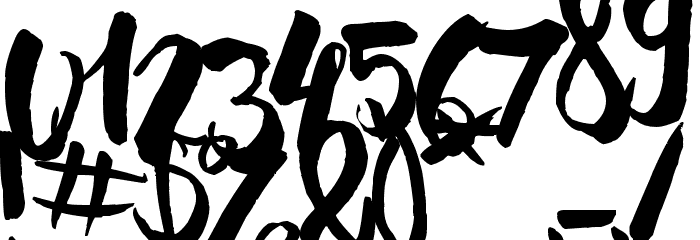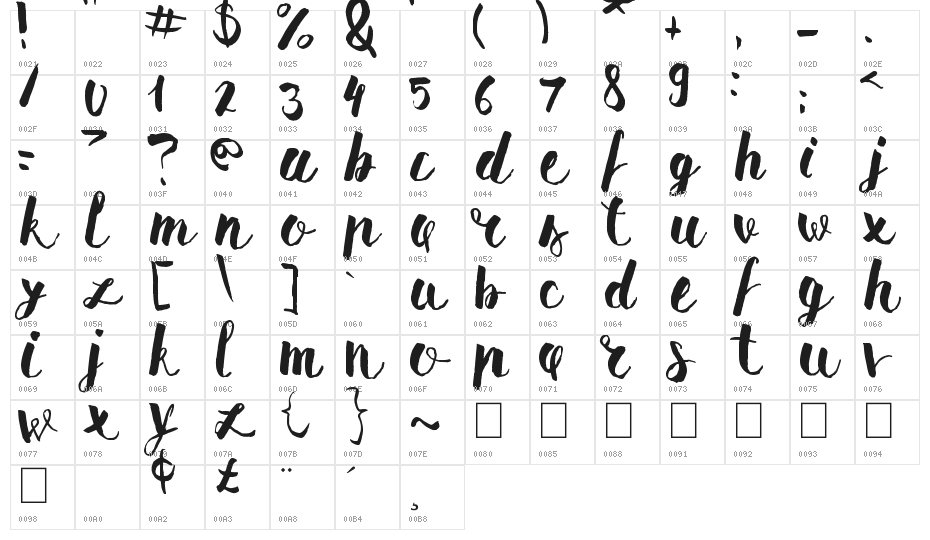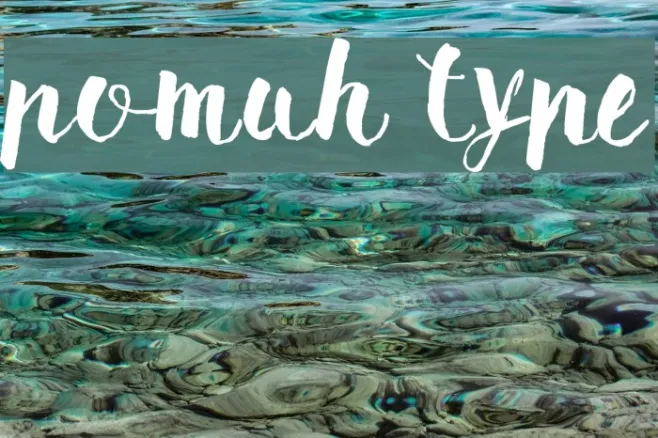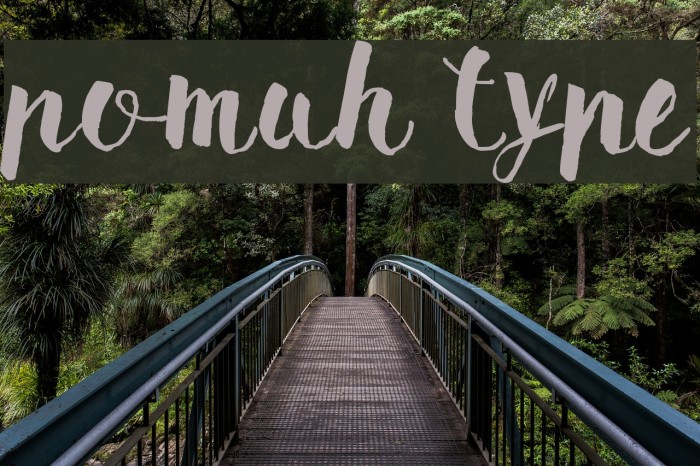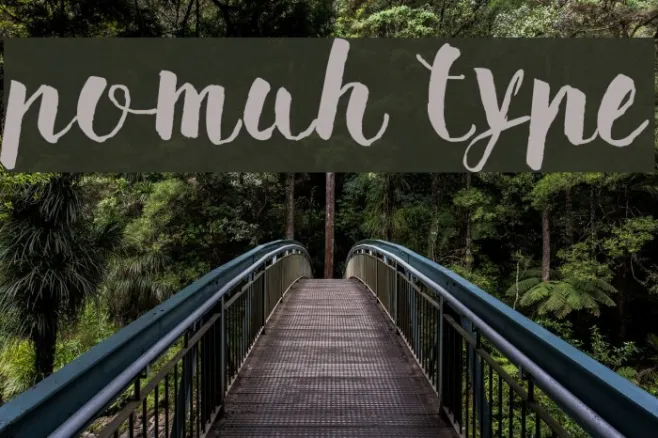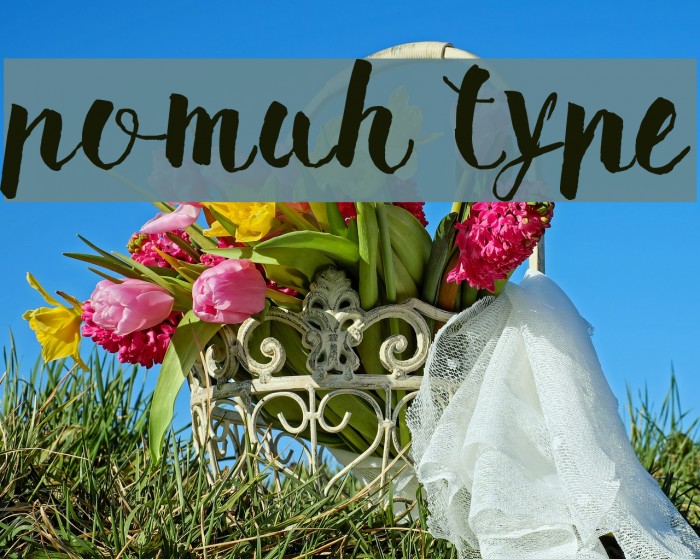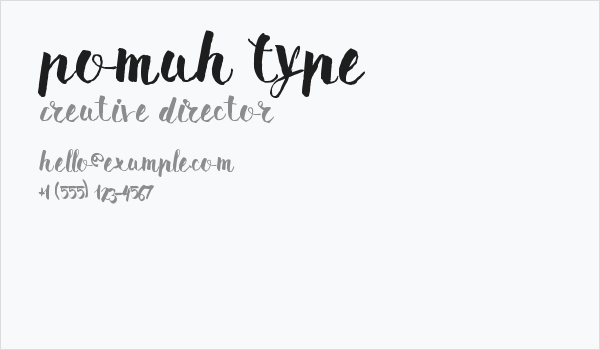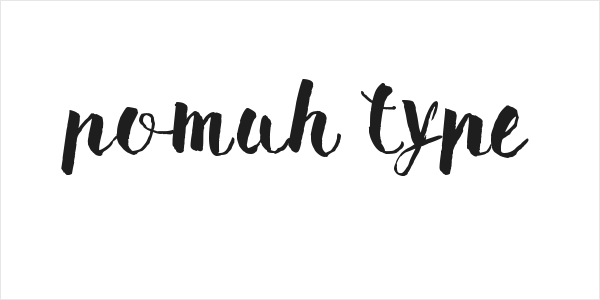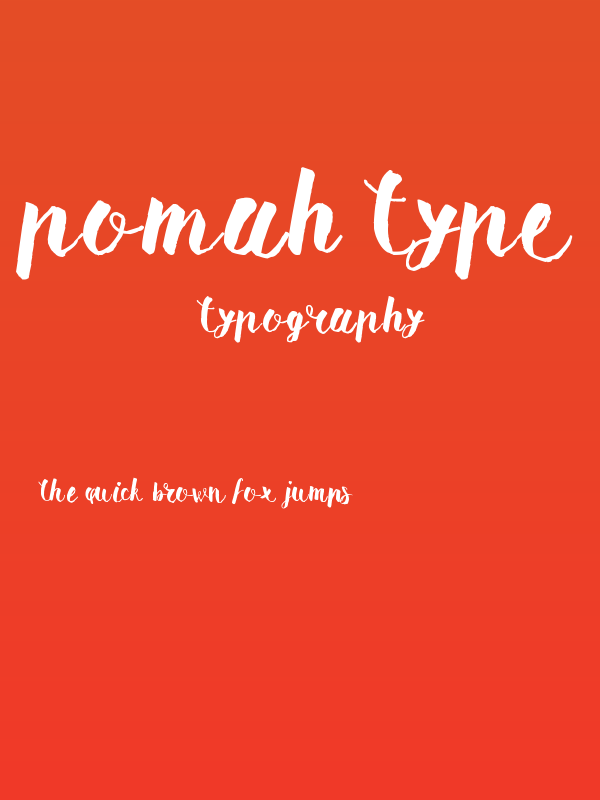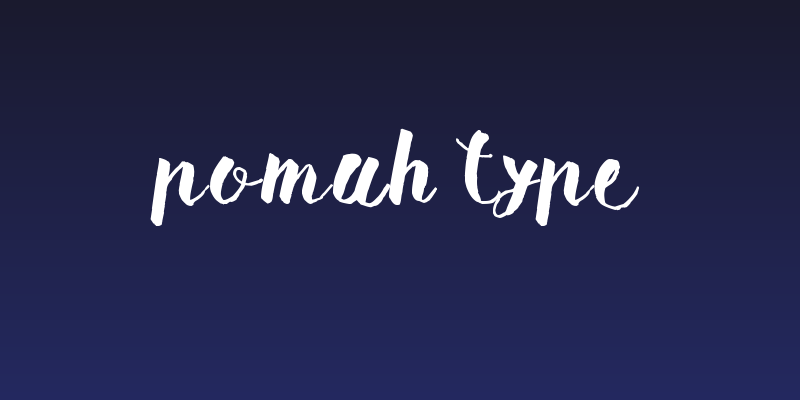
Pomah Type Font
Pomah Type Description
This font features a bold, expressive script style with a hand-drawn appearance. The letters are connected, giving it a fluid and dynamic look. The strokes are thick and vary in width, adding a lively and energetic feel. The uppercase and lowercase letters maintain a consistent style, with playful loops and curves that enhance its artistic flair. The numbers and special characters follow the same expressive design, making the font versatile for creative projects. Its overall appearance is both modern and artistic, suitable for designs that require a personal touch.
| Proposed Projects | Ideal for greeting cards, invitations, branding, and artistic posters. |